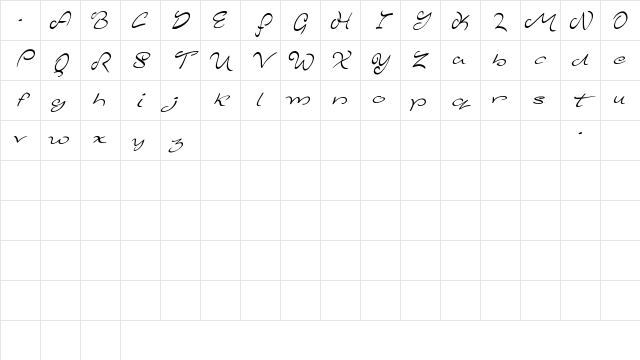
Complete Majestic Mansion Regular glyph index. Displaying only characters natively supported by Majestic Mansion Regular font.
Majestic Mansion is a composed and adaptable typeface that performs quietly and consistently across a wide range of design contexts.